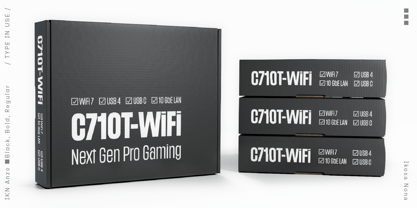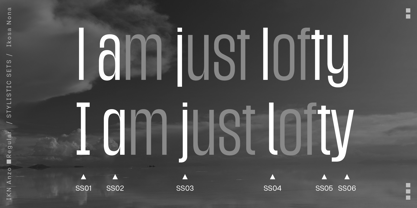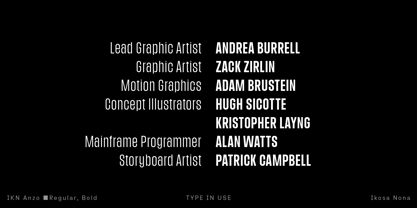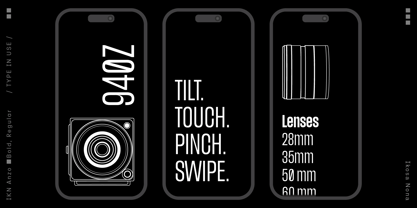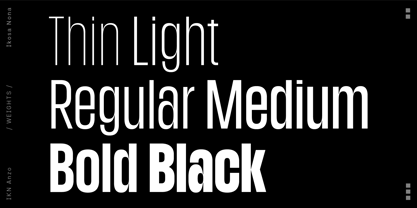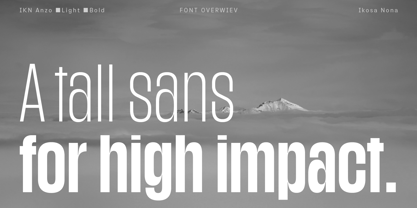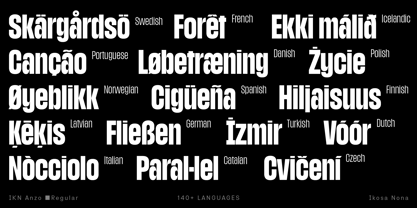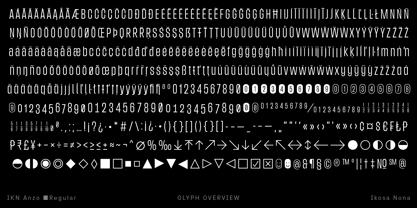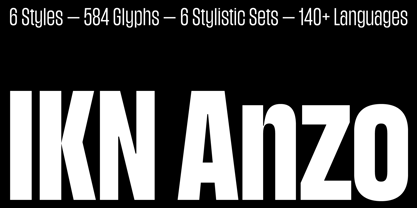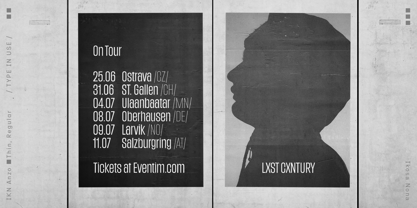
IKN Anzo
by Ikosa Nona
The IKN Anzo Font Family was designed by Andreas Eijerfors, Maria Fredman and published by Ikosa Nona. IKN Anzo contains 6 styles and family package options. More about this family
IKN Anzo is a condensed sans-serif with tall, narrow proportions and a controlled, space efficient structure. It allows more text to fit horizontally while maintaining a confident vertical presence. Ascenders, descenders, and diacritics are kept close to the core letterforms, creating a balanced and stable text block with an even typographic color. Six carefully balanced weights provide a range of typographic contrast. Stylistic sets add flexibility through alternate forms for capital I and single-story a, as well as a choice between straight or rounded shapes in selected letters, allowing designers to fine-tune the tone from strictly linear to subtly softer. Additional features such as circled numerals, slashed zeros, and arrows extend its use in editorial and graphic contexts. IKN Anzo is well suited for titles, headlines, packaging, branding, editorials, and applications where density, control, and a distinct contemporary presence are essential.
Designers: Andreas Eijerfors, Maria Fredman
Foundry: Ikosa Nona
Ikosa Nona is a Swedish type foundry founded by a creative duo with a shared focus on the aesthetic and human side of type. We design typefaces that balance personality with usability — distinctive fonts that are easy to work with. We blend modern form with traditional craftsmanship. Our work is rooted in thoughtful design and careful execution, shaped by a love of quality, function, and expressive form. We create fonts with a clear typographic voice — made to serve designers, brands, and cultural institutions who value both aesthetics and reliability. The name Ikosa Nona means “29,” a nod to the 29 letters of the Swedish alphabet. Just like those extra letters, we aim to add something both specific and universal — small differences that make a big impact. Every typeface we release is crafted with intent and refined with care, and we take pride in designing tools that not only look good, but work beautifully in real-world use.